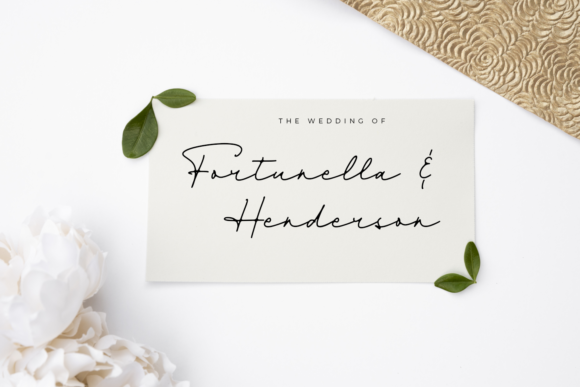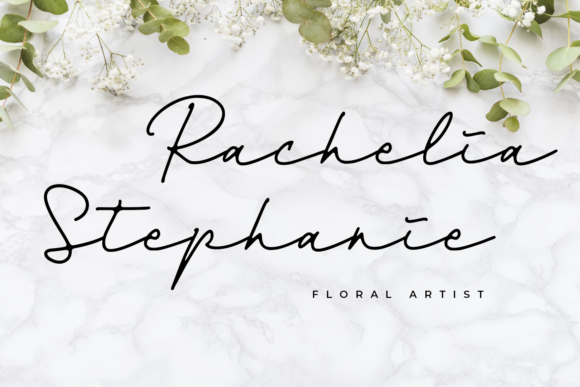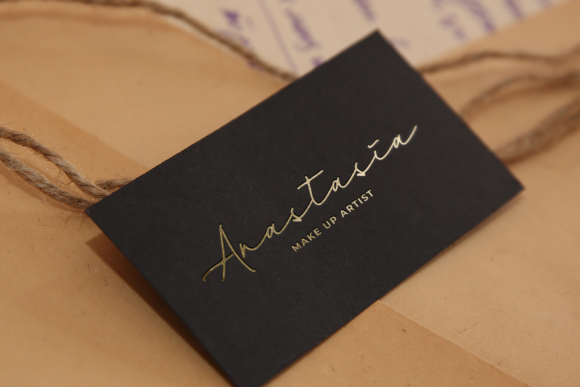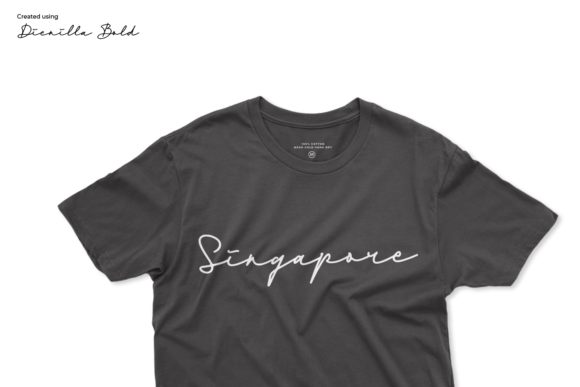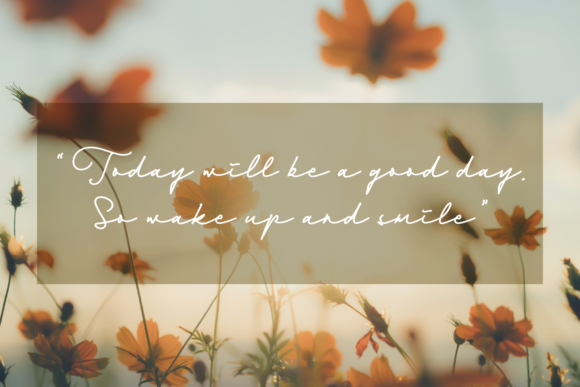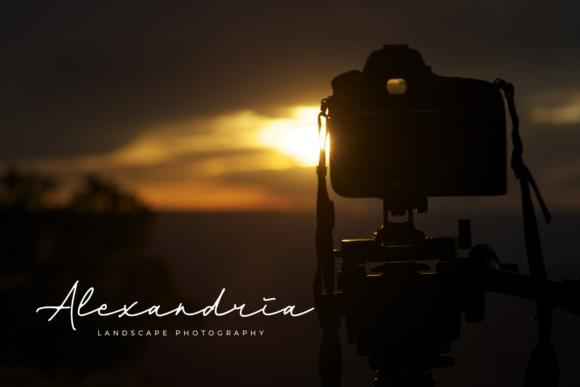
Dienilla Font: Elevate Your Designs with Luxurious Handwritten Elegance
In the world of typography, a great font can make all the difference in transforming a design from ordinary to extraordinary. For designers and crafters looking to add a touch of luxury and sophistication to their projects, Dienilla Font is an exceptional choice. This stunning handwritten font is meticulously crafted to bring a level of elegance and refinement to any creative endeavor, whether it’s for digital platforms like Instagram or for DIY projects that require a personal touch.
The Essence of Dienilla Font
Dienilla Font stands out with its beautiful, flowing script that exudes luxury and creativity. Its design is characterized by gorgeous swashes and ligatures, elements that not only add to its aesthetic appeal but also enhance its versatility. Swashes and ligatures are decorative strokes and connections between letters, respectively, which can significantly elevate the visual impact of text. With Dienilla, these features are thoughtfully integrated to ensure that the font can be used in a wide range of applications, from elegant branding and advertising to artistic projects and personal crafts.
One of the key advantages of Dienilla Font is its incredible versatility. This font is not just limited to professional design work; it’s also perfect for personal projects and DIY enthusiasts. For those looking to create stunning Instagram posts, Dienilla offers a sophisticated and trendy look that is sure to capture attention. Its elegant script and beautiful swashes can turn simple quotes, stories, or announcements into visually appealing pieces of art.
For crafters and DIY project enthusiasts, Dienilla Font can be a game-changer. Whether you’re working on handmade cards, crafting beautiful journals, or creating personalized gifts, this font can add a touch of luxury and personalization. The calligraphy-like quality of Dienilla makes it ideal for projects that require a handwritten feel but with a refined and polished look.
Why Choose Dienilla Font?
• Luxury and Elegance: Dienilla brings a high-end feel to any project, making it perfect for designs that require a sophisticated look.
• Versatility: Its features, such as swashes and ligatures, make it suitable for a wide range of applications, from digital media to handmade crafts.
• Easy to Use: Despite its luxurious appearance, Dienilla Font is easy to use, even for those who are new to design or crafting.
• Unique and Eye-Catching: The distinctive style of Dienilla ensures that your projects stand out from the crowd, capturing the attention of your audience.
• Experiment with Swashes: Play around with the swashes to find the perfect combination that complements your design.
• Mix and Match: Don’t be afraid to mix Dienilla with other fonts to create a unique contrast.
• Pay Attention to Ligatures: Use ligatures to add a natural flow to your text, making it more readable and visually appealing.
Dienilla Font is more than just a font; it’s a tool for creativity and self-expression. Its luxurious handwritten elegance, combined with its versatility and ease of use, makes it an invaluable asset for designers and crafters alike. Whether you’re looking to elevate your professional designs or add a touch of sophistication to your DIY projects, Dienilla Font is sure to exceed your expectations. With Dienilla, you can turn any creative idea into a true piece of art, making it a worthwhile addition to your design toolkit.